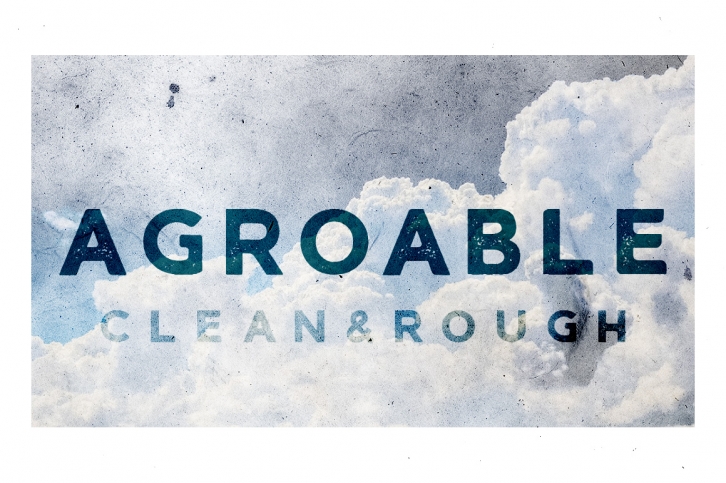
Agroable is a beautiful font that was designed by seveniwe. It's a great choice for designers and creatives who need such a font. It was released on June 26, 2017 and the file size is 9.48 MB. Agroable may give a more youthful, expressive and casual look to your project. It is a very beautiful, refined, elegant, and high-quality font.